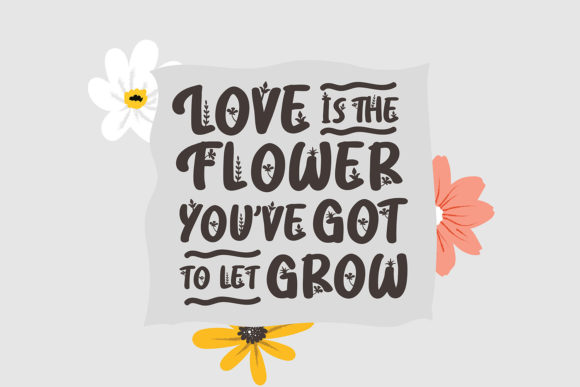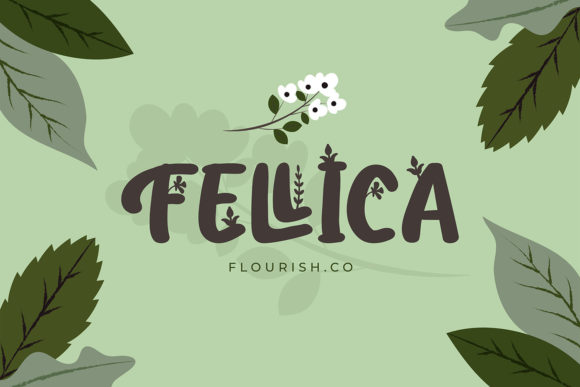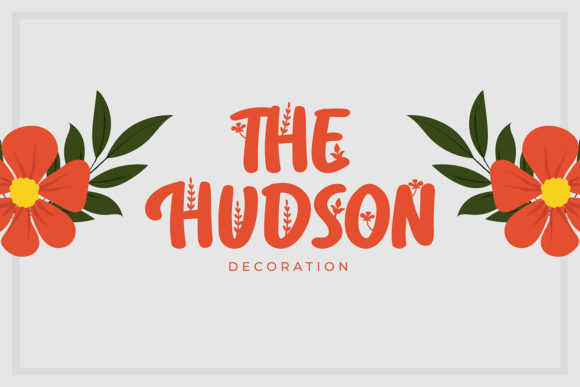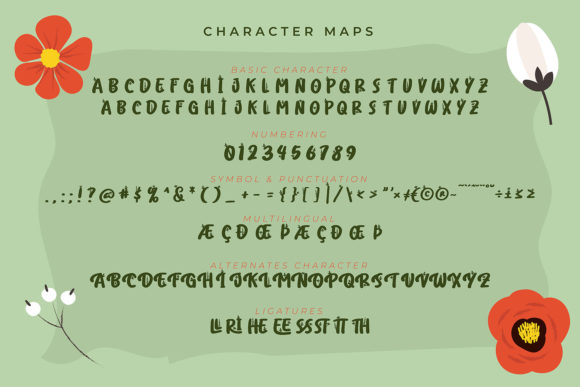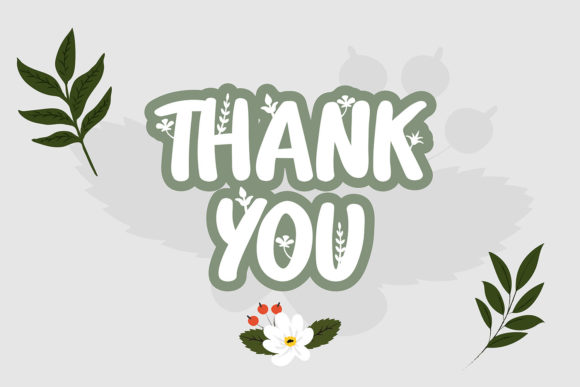
Introducing Fllorida Font: Elevate Your Designs with a Fun and Neat Display Font
Fllorida is a fun and neat looking display font that can instantly elevate any design idea you have in mind. With its casual and natural vibe, this font is perfect for designers and crafters looking to add a touch of personality to their projects. In this article, we’ll dive into the features and benefits of Fllorida Font, and explore how you can use it to take your designs to the next level.
The Characteristics of Fllorida Font
Fllorida Font is a display font that boasts a unique and eye-catching style. Its casual and natural look makes it perfect for designs that require a friendly and approachable tone. The font features:
- Clean and Simple Lines: Fllorida Font has clean and simple lines that give it a neat and organized look. The font is easy to read, making it perfect for headlines, titles, and short paragraphs of text.
- Rounded Edges: The font features rounded edges that add to its casual and natural vibe. The rounded edges also make the font look friendly and approachable.
- Unique Letterforms: Fllorida Font has unique letterforms that set it apart from other display fonts. The font’s letterforms are carefully crafted to give it a distinctive look that’s both fun and elegant.
- Versatility: Fllorida Font is a versatile font that can be used for a wide range of design projects, including logos, brochures, posters, and social media graphics.
Fllorida Font can be used in a variety of design projects, including:
- Logos and Branding: Use Fllorida Font to create a unique and memorable logo for your business or brand.
- Social Media Graphics: Use the font to create eye-catching social media graphics that will help you stand out from the crowd.
- Posters and Flyers: Fllorida Font is perfect for creating posters and flyers that require a bold and eye-catching headline.
- Web Design: Use the font to create a unique and memorable website that reflects your brand’s personality.
- Experiment with Different Sizes: Fllorida Font looks great at a variety of sizes, so don’t be afraid to experiment with different sizes to find the one that works best for your design.
- Pair it with Other Fonts: Fllorida Font can be paired with other fonts to create a unique and memorable design. Try pairing it with a sans-serif font for a bold and modern look.
- Use it for Headlines: Fllorida Font is perfect for headlines and titles, so use it to create a bold and eye-catching headline that will grab the reader’s attention.
Fllorida Font is a fun and neat looking display font that’s perfect for designers and crafters looking to add a touch of personality to their projects. With its casual and natural vibe, this font is perfect for designs that require a friendly and approachable tone. Whether you’re creating a logo, social media graphic, or website, Fllorida Font is a great choice. So why not give it a try and see how it can elevate your designs?